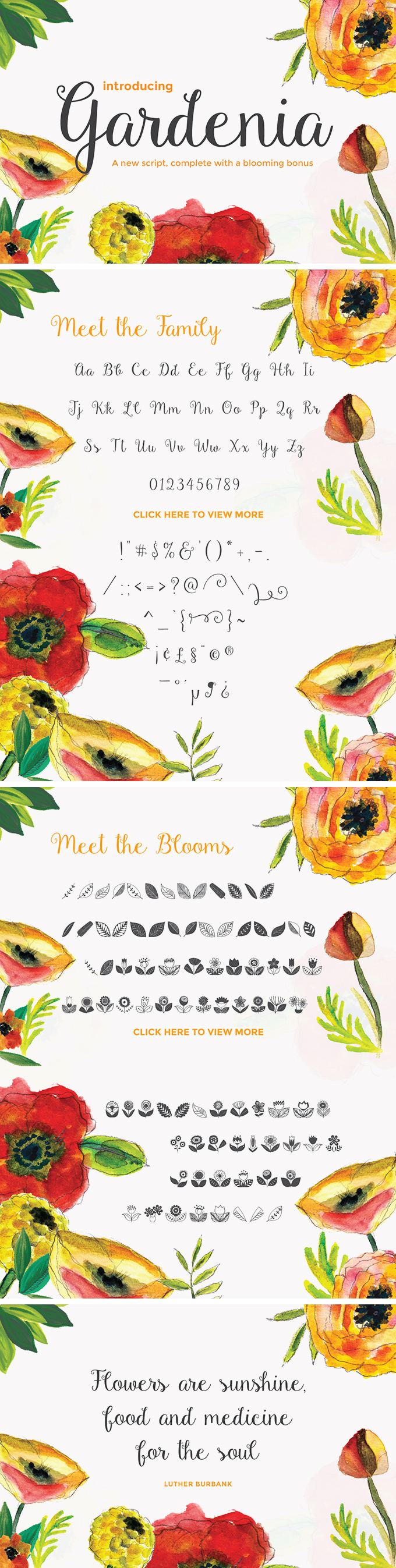
Gardenia Script Font
Introducing Gardenia Script Font! Gardenia was designed by Emily Spadoni. A professional designer. Gardenia Script is a new hand crafted typeface inspired by the springtime. Hand drawn characters are a warm addition to any project.